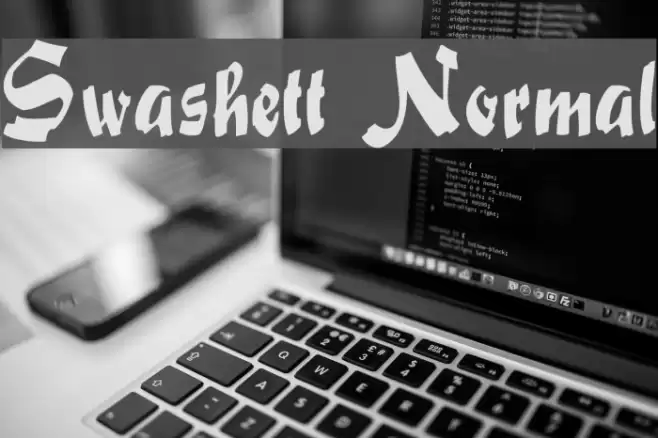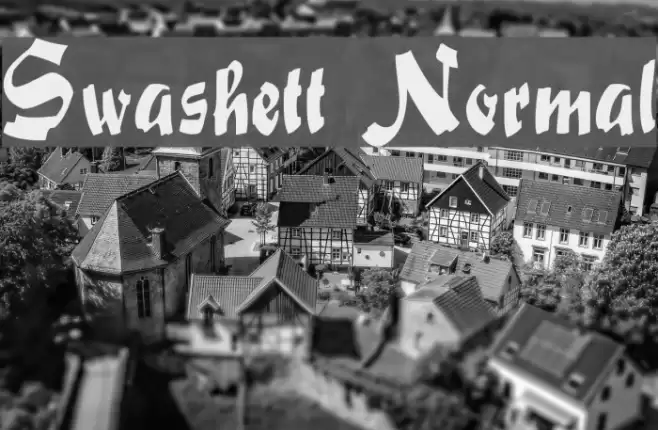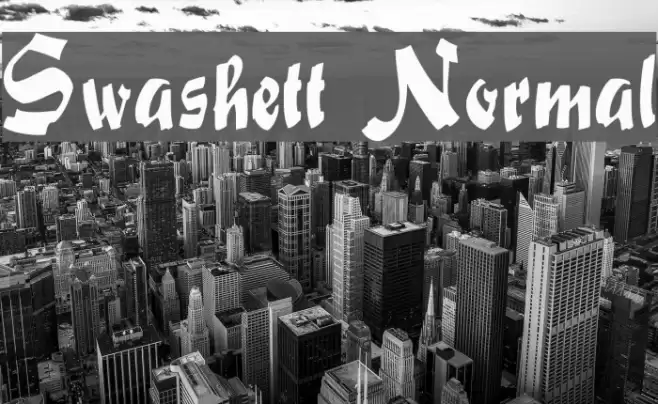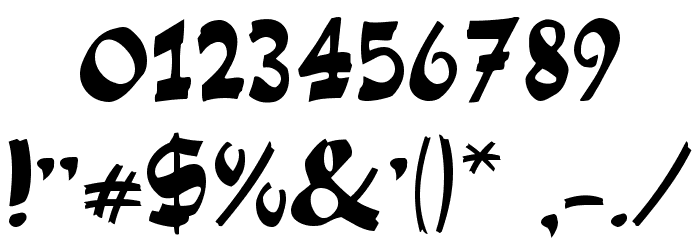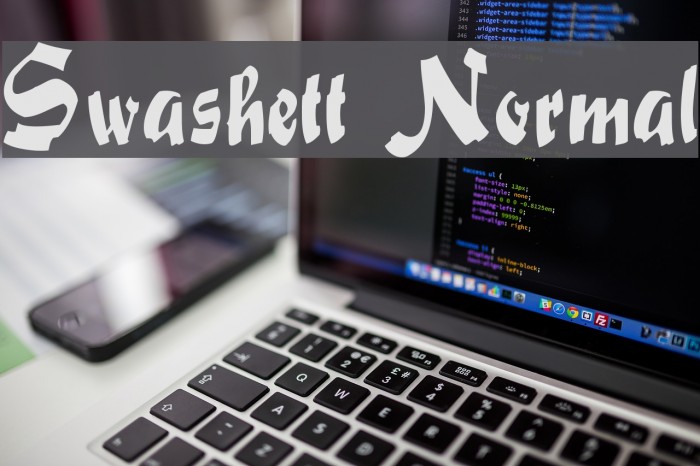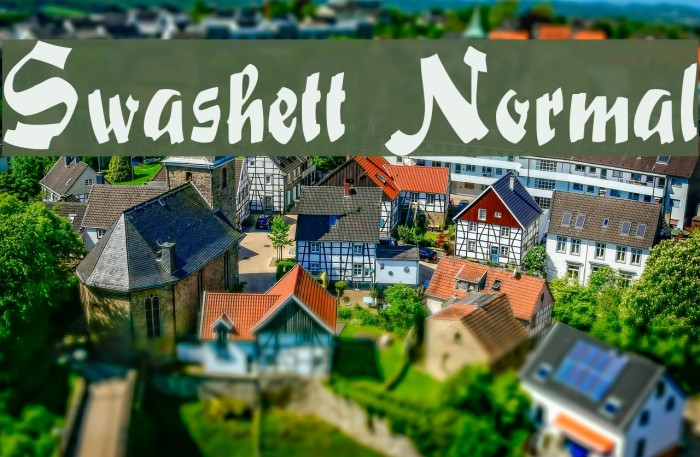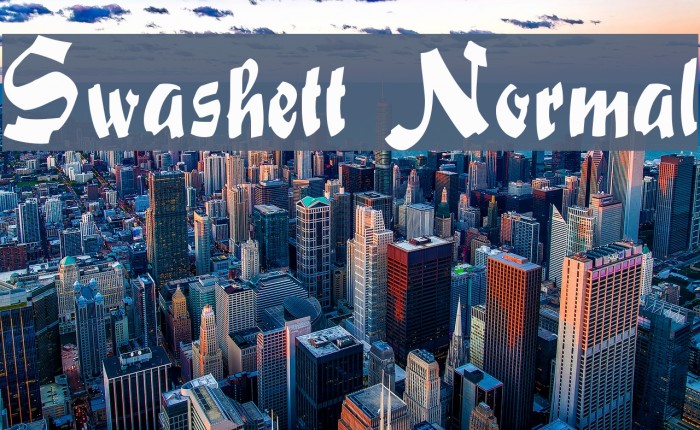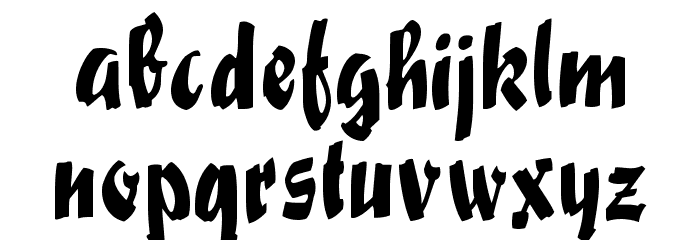
Swashett Normal Font
Swashett Normal Description
This font features a bold and dynamic style with a strong presence. The characters are designed with a calligraphic flair, incorporating swashes and flourishes that give it a distinctive and artistic appearance. The uppercase letters are particularly striking, with exaggerated curves and angles that create a sense of movement and energy. The lowercase letters maintain this expressive style, ensuring consistency throughout the typeface. The numerals and special characters are equally bold, making them stand out effectively. This font is ideal for projects that require a dramatic and eye-catching typeface.
A bold, swash-filled font with a calligraphic and dynamic style from Handwritten fonts.
- Proposed Projects: Ideal for branding, posters, invitations, and any design that requires a dramatic and artistic touch.